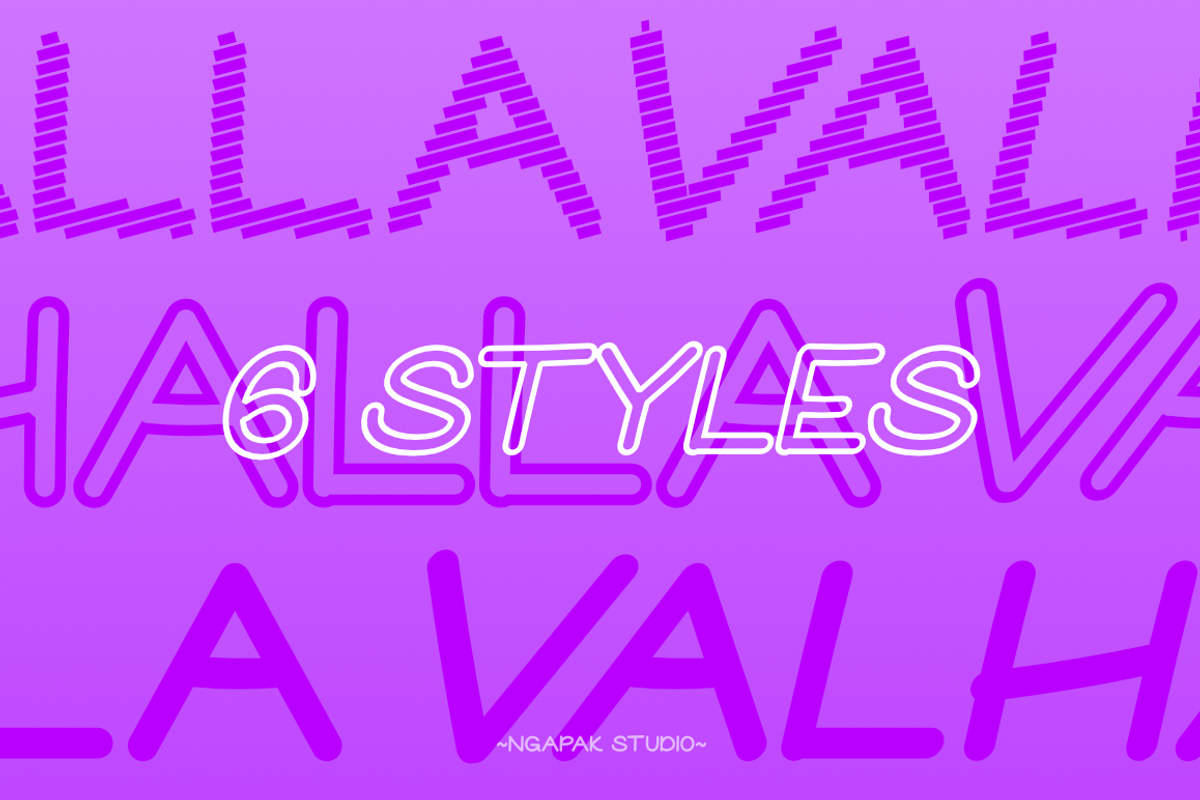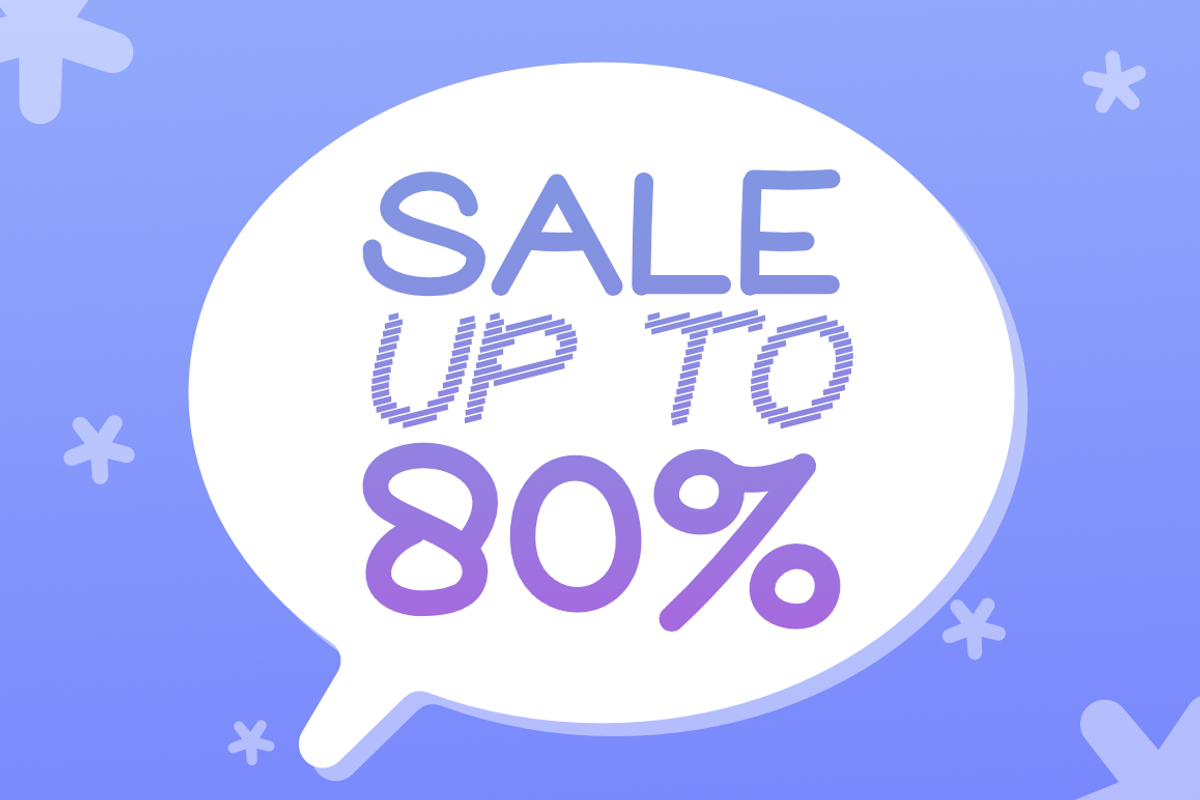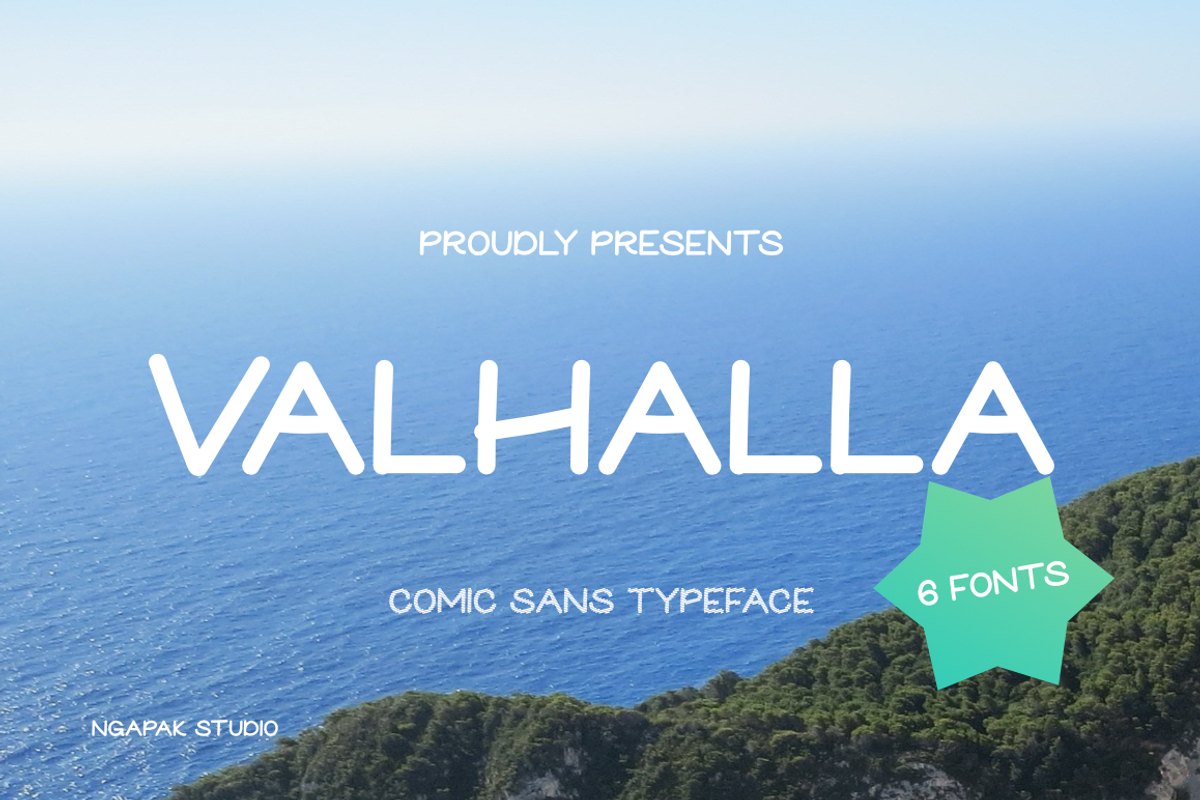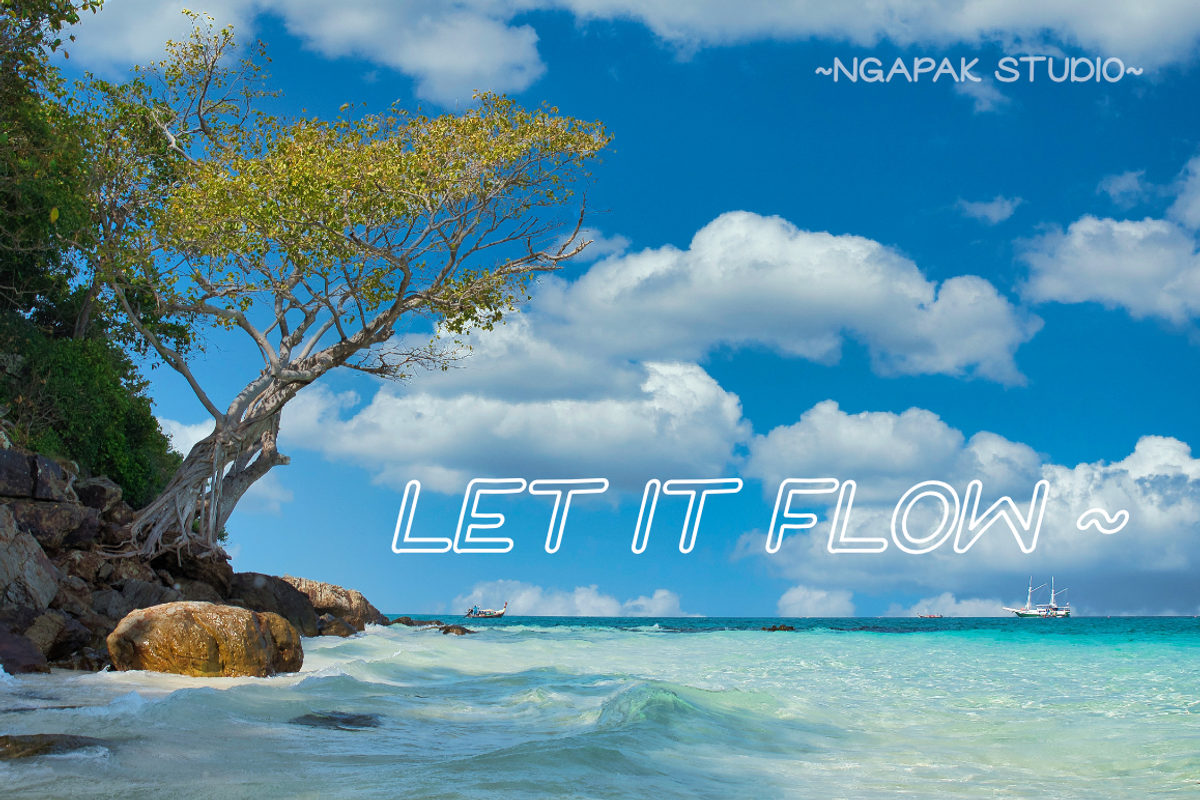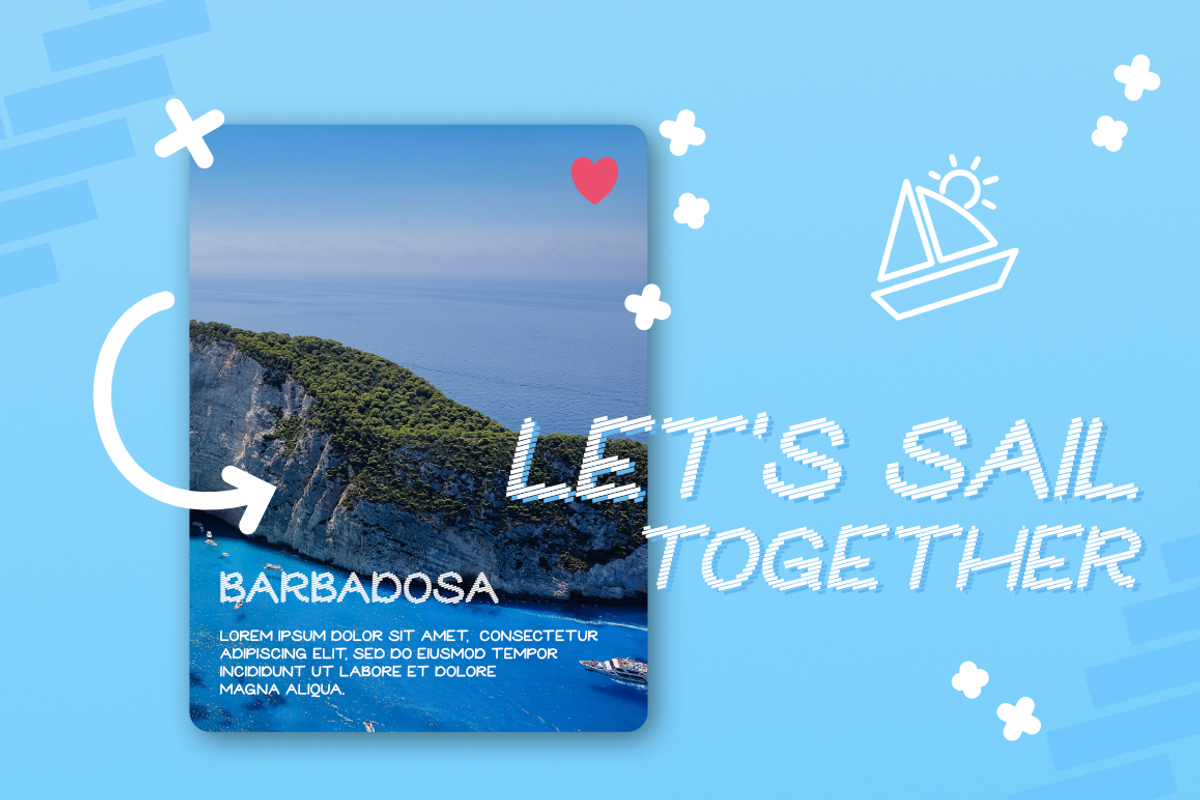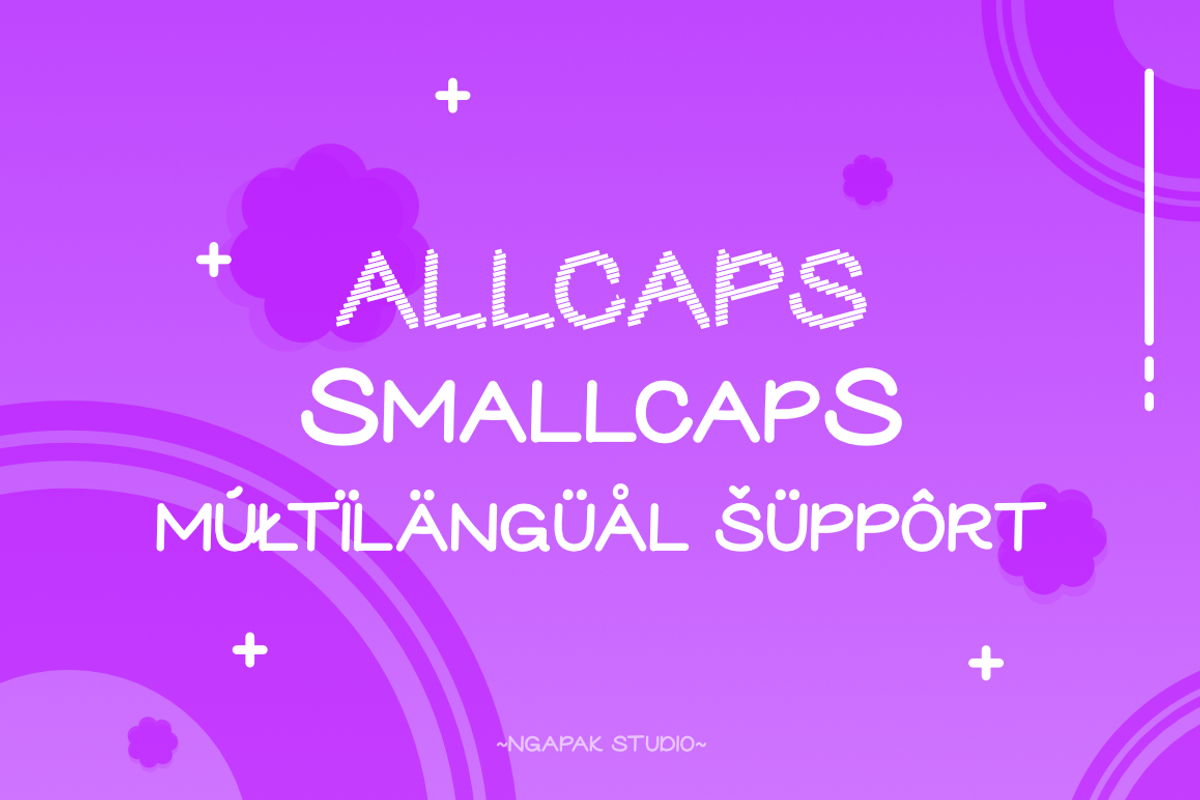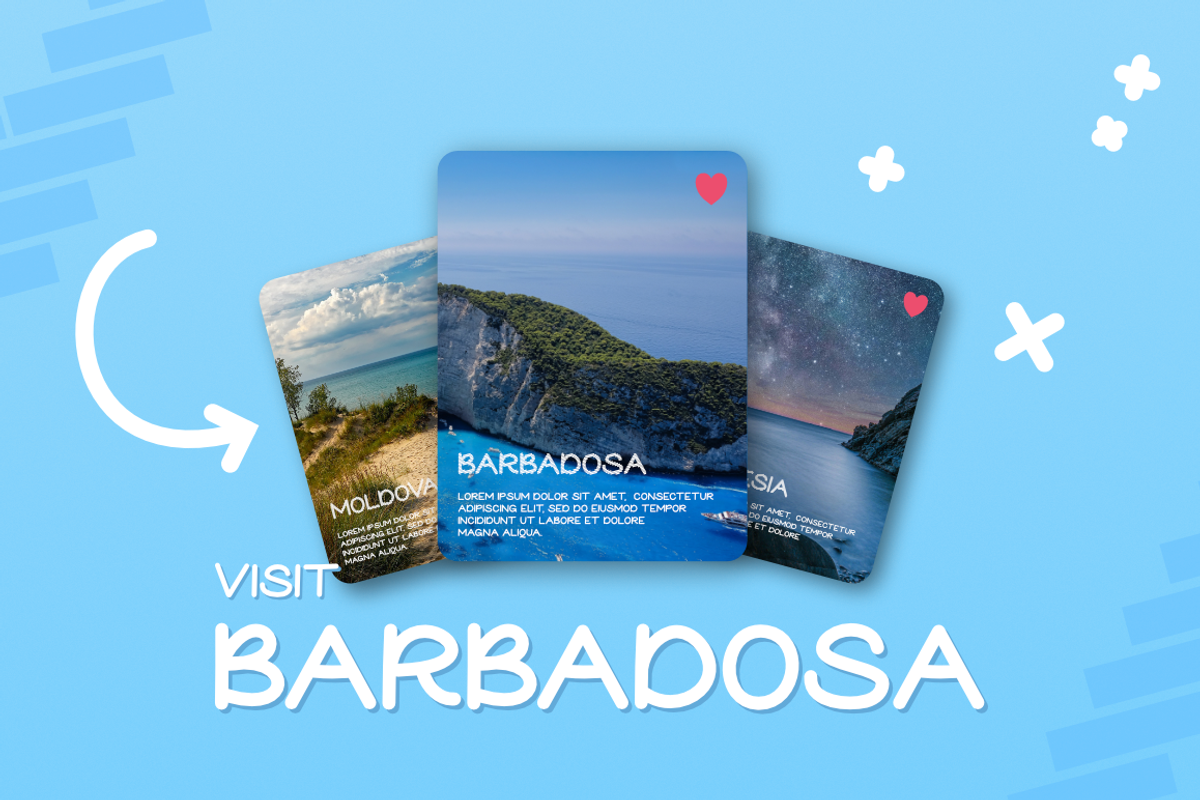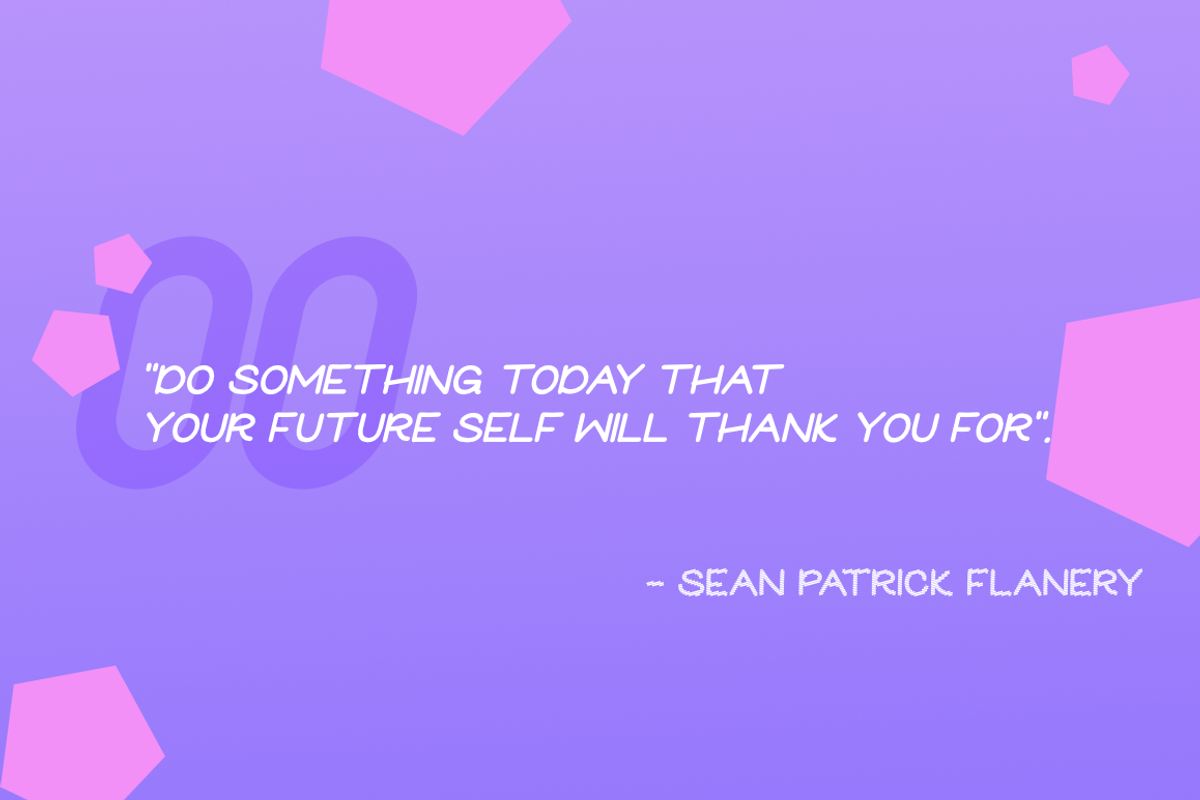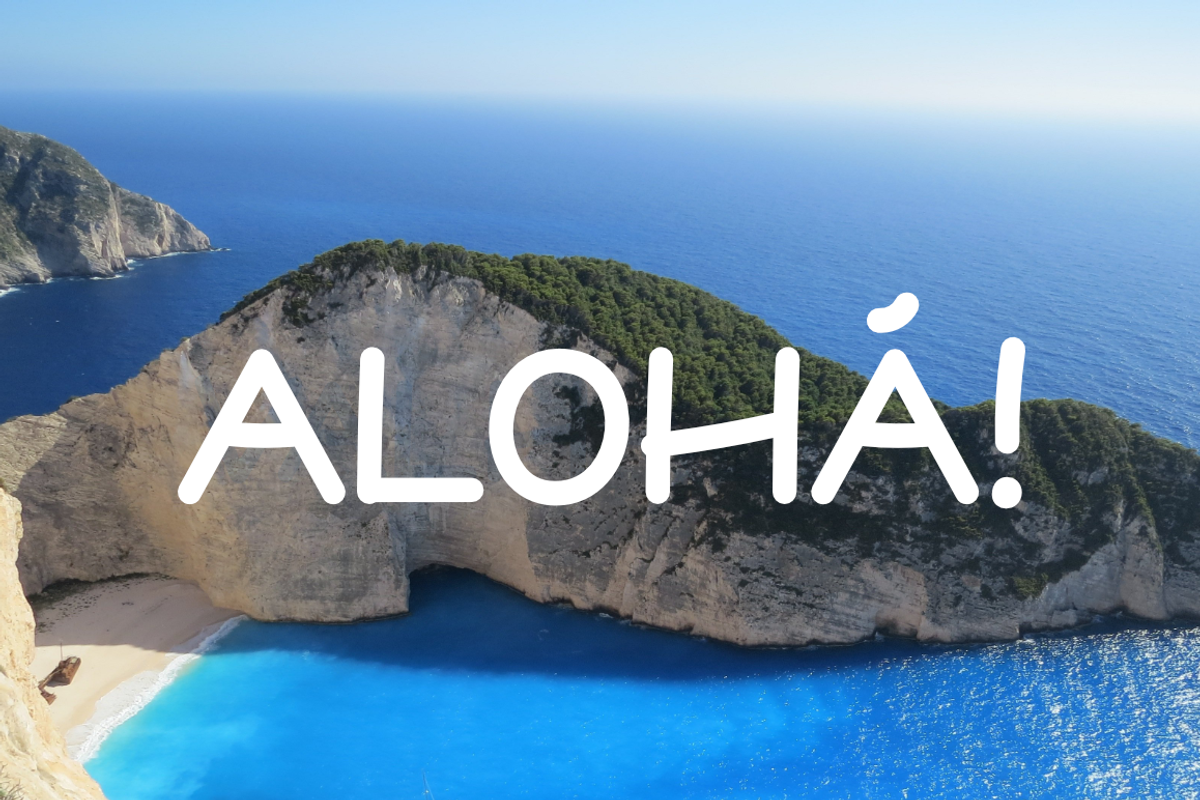
Valhalla Comic Sans
Valhalla is a modern comic sans and handlettering style font that is perfect for interfaces and website for shops.
Valhalla is perfect for branding projects, application, websites, logo, social media posts, advertisements, product packaging, product designs, label, photography, watermark, invitation, stationery and any projects that need comic sans typeface taste.